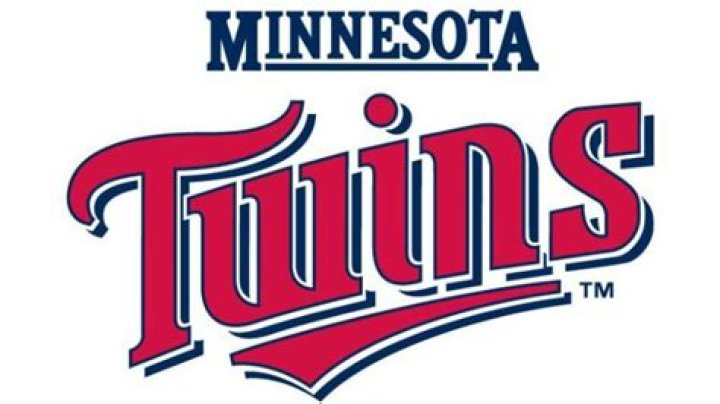
The Minnesota Twins logo font is a mix of MLB Minnesota Twins and a Simple Serif Font. The MLB Minnesota Twins font is used for jersey lettering, player names, numbers, team logo, branding, and merchandise.
Why do the Twins have TC on their jerseys?
The team was allowed to keep its original “TC” (for Twin Cities) insignia for its caps. The team’s logo shows two men, one in a Minneapolis Millers uniform and one in a St. Paul Saints uniform, shaking hands across the Mississippi River within an outline of the state of Minnesota.
What is the C for in the Twins logo?
Twin Cities
The Minnesota Twins have an interlocking “TC” logo despite the letter “C” not appearing anywhere in the name. Why is that? The short answer is that the “TC” stands for “Twin Cities” — signifying, of course, the Minneapolis-St. Paul metropolitan area.
What does the C mean in the Minnesota Twins logo?